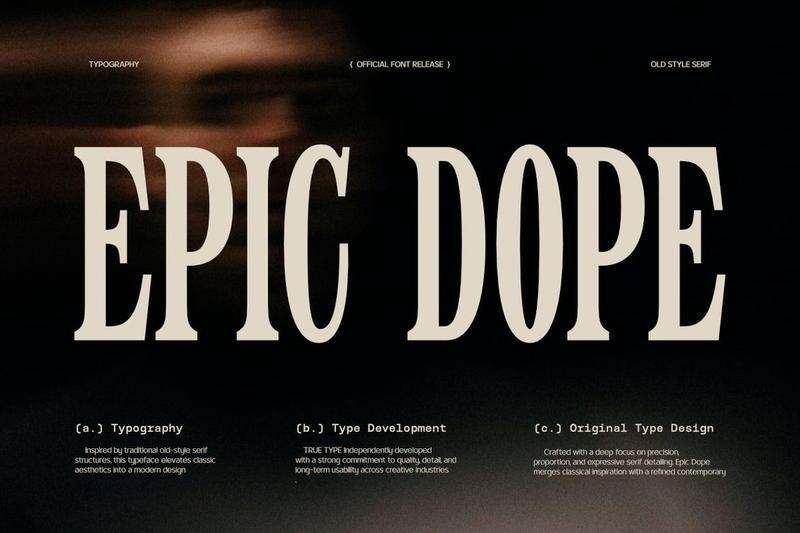
TBJ Epic Dope is an elegant condensed serif typeface that blends classic sophistication with modern character. Featuring tall proportions, refined high-contrast strokes, and distinctive serif details, it creates a strong visual impact while maintaining excellent readability.
Perfect for luxury branding, logos, editorial headlines, packaging, fashion projects, restaurant identities, and premium marketing materials. Its narrow structure allows for bold, space-efficient compositions, making every design feel stylish, confident, and memorable.
Whether you’re creating a high-end brand identity or eye-catching display typography, TBJ Epic Dope delivers timeless elegance with a contemporary edge.